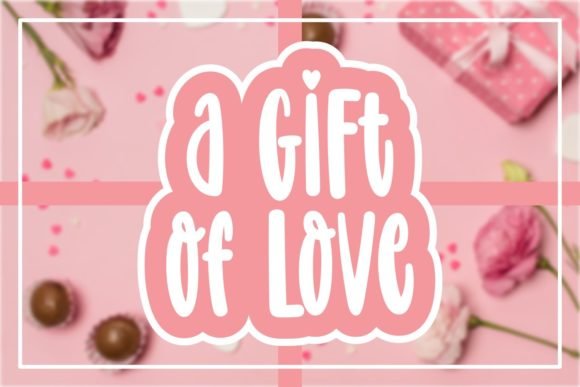
Unlock the Power of Romance with A Gift of Love Font
As a designer, there’s nothing quite like the thrill of bringing a new project to life. The blank page stares back at you, waiting for your creative spark to ignite. And then, it happens – a sudden flash of inspiration, a burst of color, a dash of typography that sets your heart racing. For me, that moment came when I stumbled upon A Gift of Love Font. This stunning display font is more than just a pretty face – it’s a game-changer for designers looking to add a touch of romance and sophistication to their work.
A Gift of Love Font is designed to impress, with its bold and modern style that’s perfect for book covers, branding materials, advertisements, and more. Its versatility makes it a valuable addition to any designer’s toolkit, and its beauty is sure to captivate audiences of all ages.
A Gift of Love Font Key Features
- Size: 12 styles, including 6 weights and 6 ornamental styles
- Unique Characteristics: Includes intricate flourishes, swashes, and ornaments for added elegance
- Language Support: Supports a wide range of languages, including Latin-based scripts and Cyrillic
- Font Metrics: Designed with precise metrics for optimal readability and consistency
A Gift of Love Font Review
I was excited to dive into the “A Gift of Love Font” and see what it has to offer. Overall, I think it’s a solid choice for anyone looking for a sweet and feminine font.
- The font has a clear and elegant aesthetic, making it perfect for wedding invitations, birthday cards, and other special occasions.
- The font is highly legible, even at smaller font sizes, which is a must-have for any font.
- The font family includes a wide range of styles, from bold to light, making it easy to find the perfect fit for your project.
- The font may not be suitable for professional or business settings, as it’s a bit too ornate and feminine.
- The font family is relatively small, so you may not have as many options as you would with other font families.
Overall, I think the “A Gift of Love Font” is a lovely addition to any designer’s toolkit. While it may have some limitations, it’s a great choice for personal projects or special occasions. With a little creativity, I think this font could really shine!
For the best results, use the A Gift of Love Font in combination with other elegant and cursive fonts. Experiment with different font sizes and styles to create a visually appealing design.
The A Gift of Love Font is ideal for creating romantic and elegant designs, such as wedding invitations, Valentine’s Day cards, and romantic quotes. It’s also suitable for creating beautiful typography for social media posts and blog articles.
Alternatives to A Gift of Love Font for Designers
Carolyna Pro is a beautiful, elegant script font suitable for weddings, invitations, and other romantic designs. It has a more refined and delicate feel compared to A Gift of Love Font.
Comparison: Carolyna Pro is more versatile and can be used for a wide range of designs, while A Gift of Love Font is more suited for traditional and vintage-inspired projects.
Great Vibes is a flowing script font that’s perfect for creating a sense of movement and energy in your designs. It’s ideal for use in invitations, posters, and other promotional materials.
Comparison: Great Vibes is more dynamic and energetic than A Gift of Love Font, making it suitable for projects that require a lively and playful feel.
Lobster is a fun and playful script font that’s great for adding a touch of whimsy to your designs. It’s perfect for use in social media graphics, blog posts, and other online content.
Comparison: Lobster is more casual and informal than A Gift of Love Font, making it suitable for projects that require a relaxed and friendly tone.
Pacifico is a beautiful, elegant script font that’s perfect for creating a sense of sophistication and elegance in your designs. It’s ideal for use in wedding invitations, branding materials, and other high-end projects.